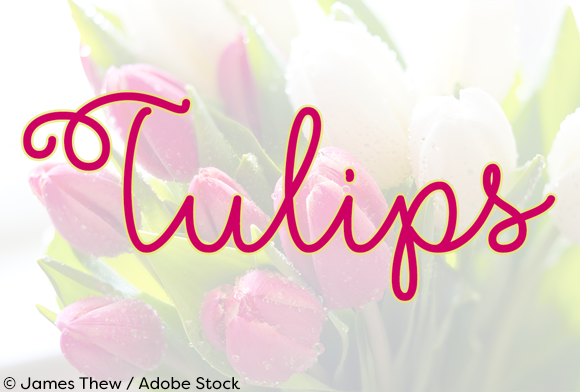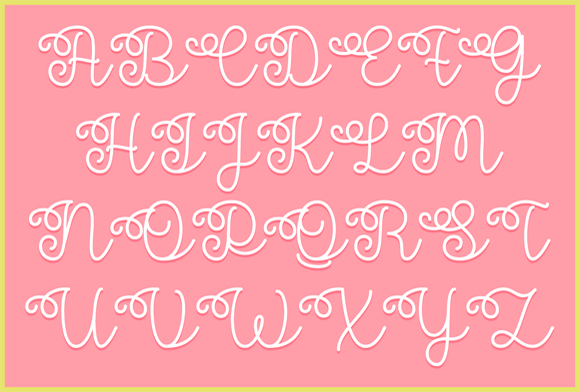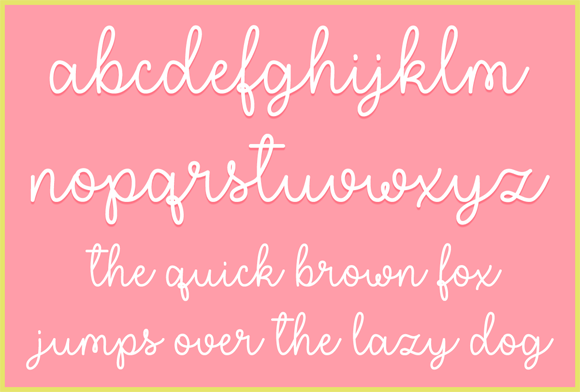
Flower Shop Font
Flower Shop is a lovely delicate script that will add a touch of flair to your projects! Great for florist shops, product labels, logos, wedding invites and so much more!